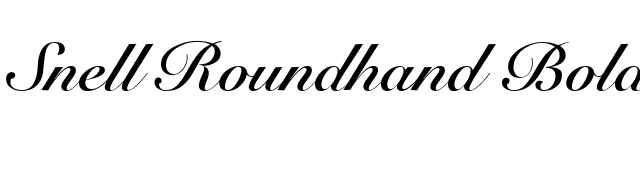
Snell roundhand was designed by matthew carter, charles snell and published by linotype. This font has a paid license and you are required to purchase its license when used for any commercial project. But in case of commercial use, a license is highly recommended or you can buy this font by clicking here.
Snell roundhand script font was designed in 1965 by matthew carter. Snell handwritten people snell roundhand snell roundhand. You can use this font for personal purpose.
Purchase includes woff and woff2. Conception and design were both based on the 18th century round hand scripts. Snell roundhand font free download.
Designed by matthew carter in 1966 up to 3 typefaces / 1 value packs supports at least 21 languages (std / ot cff) available licenses for all styles: If you want to use this online or for commercial purposes you have to its a license. Server licenses authorize the installation of a font on a server that is accessed by remote users or website visitors.
Conception and design were both based on. Snell is a connecting script that is clear and easy to read; Otf (40 kb) 228 characters.
Snell roundhand script font was designed in 1965 by matthew carter. Complete family of 3 fonts: Here you can download the font that comes in the zip format but later on, you can extract it by using any software and use in your projects.
Use it for invitations, menus, packaging, and advertising. Snell roundhand is a free typeface that is allowed to use in any of the personal projects but for a commercial project, you will require permission. Available for e book use.
Detailed information on the snell roundhand script font: So, if you buy the permit of this font you have unlimited access to this font and you can use this font in your commercial designs and projects. The font has an elegant and festive feel and its capitals can also be used as initials mixed with other alphabets.
Snell roundhand font family (includes 3 typeface) snell roundhand std regular. Late in the seventeenth century, the english writing master, charles snell, decried all flourishes in the puritan tradition and stood for a plain and efficient form of roundhand. This versatile font is available for free on our website.